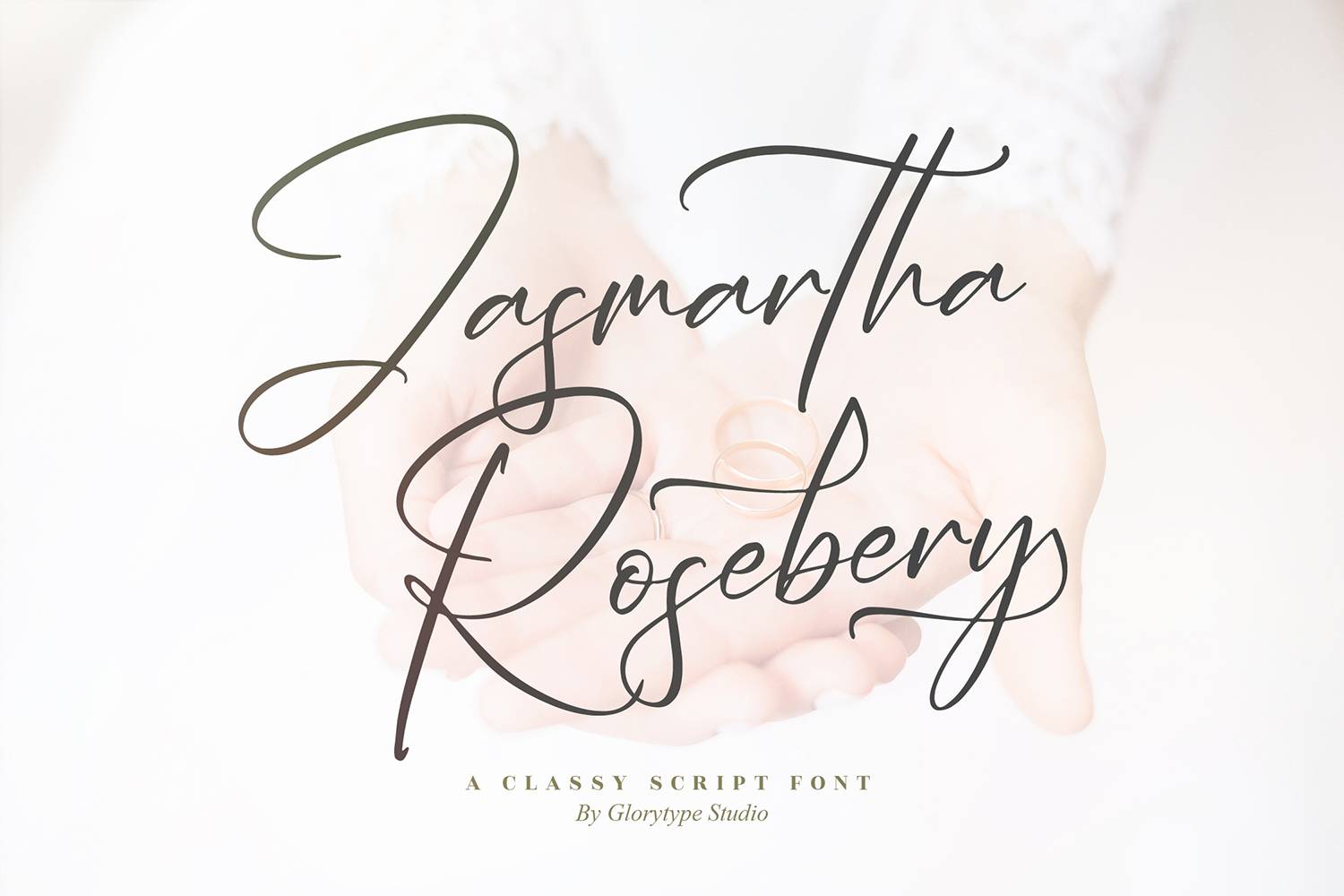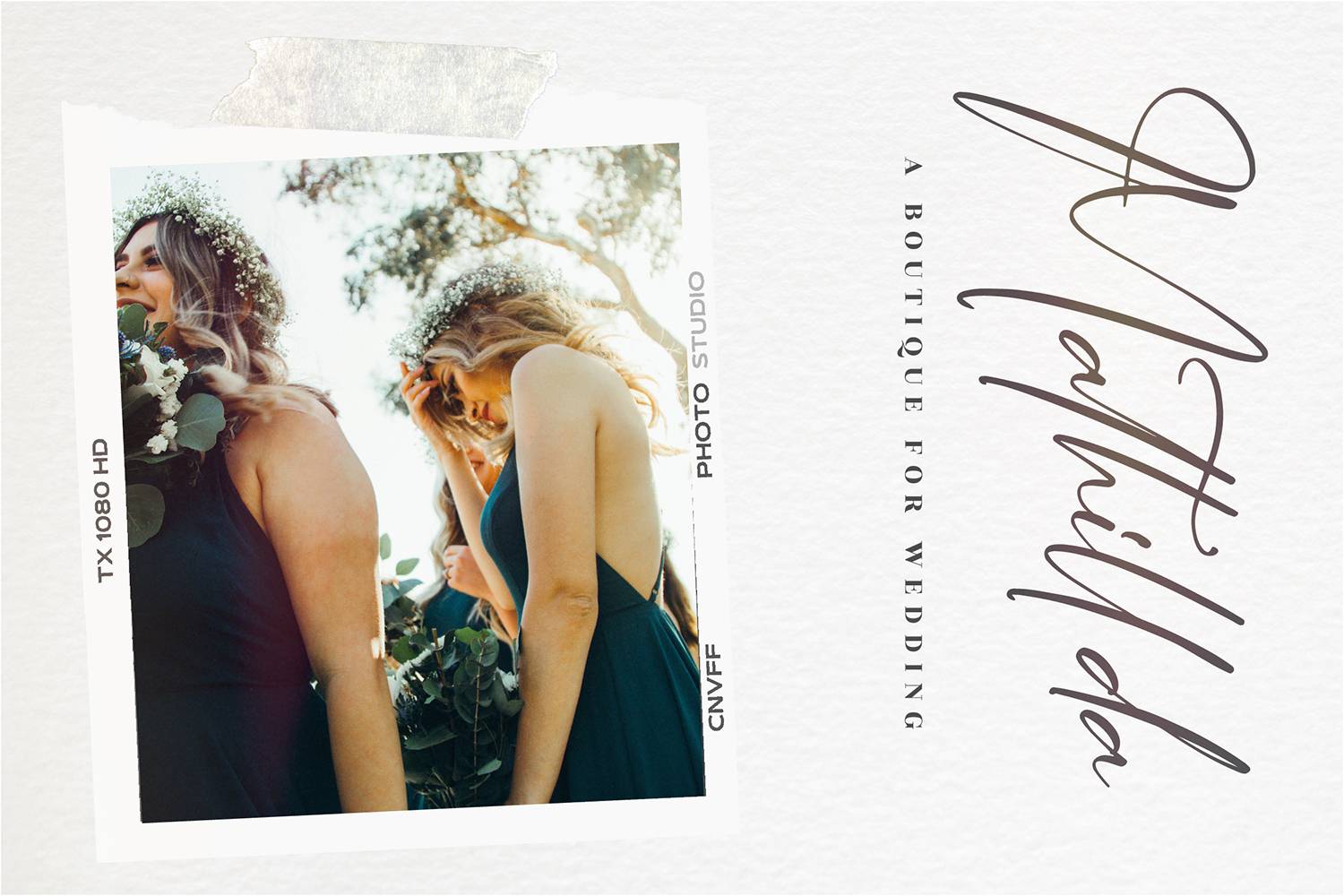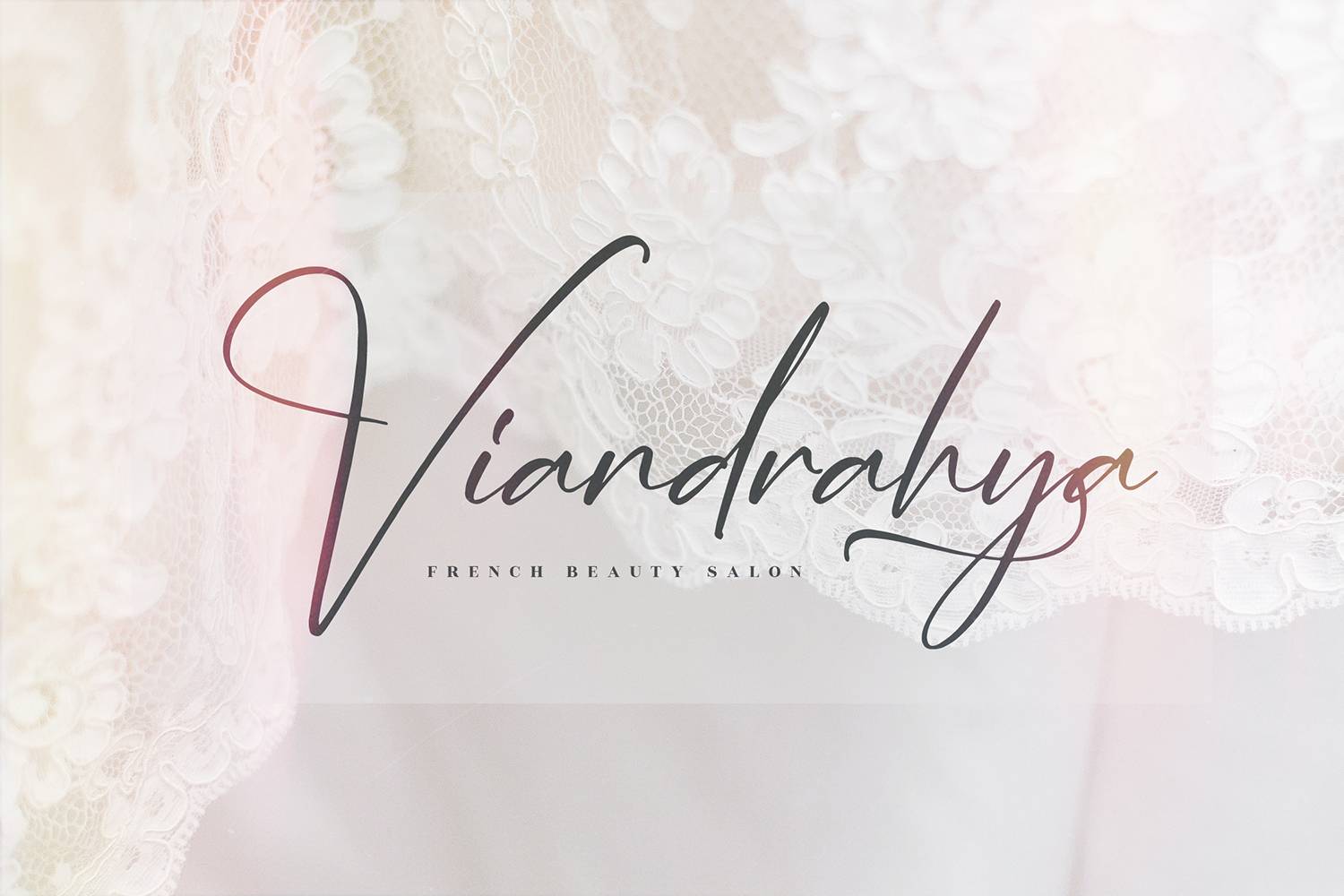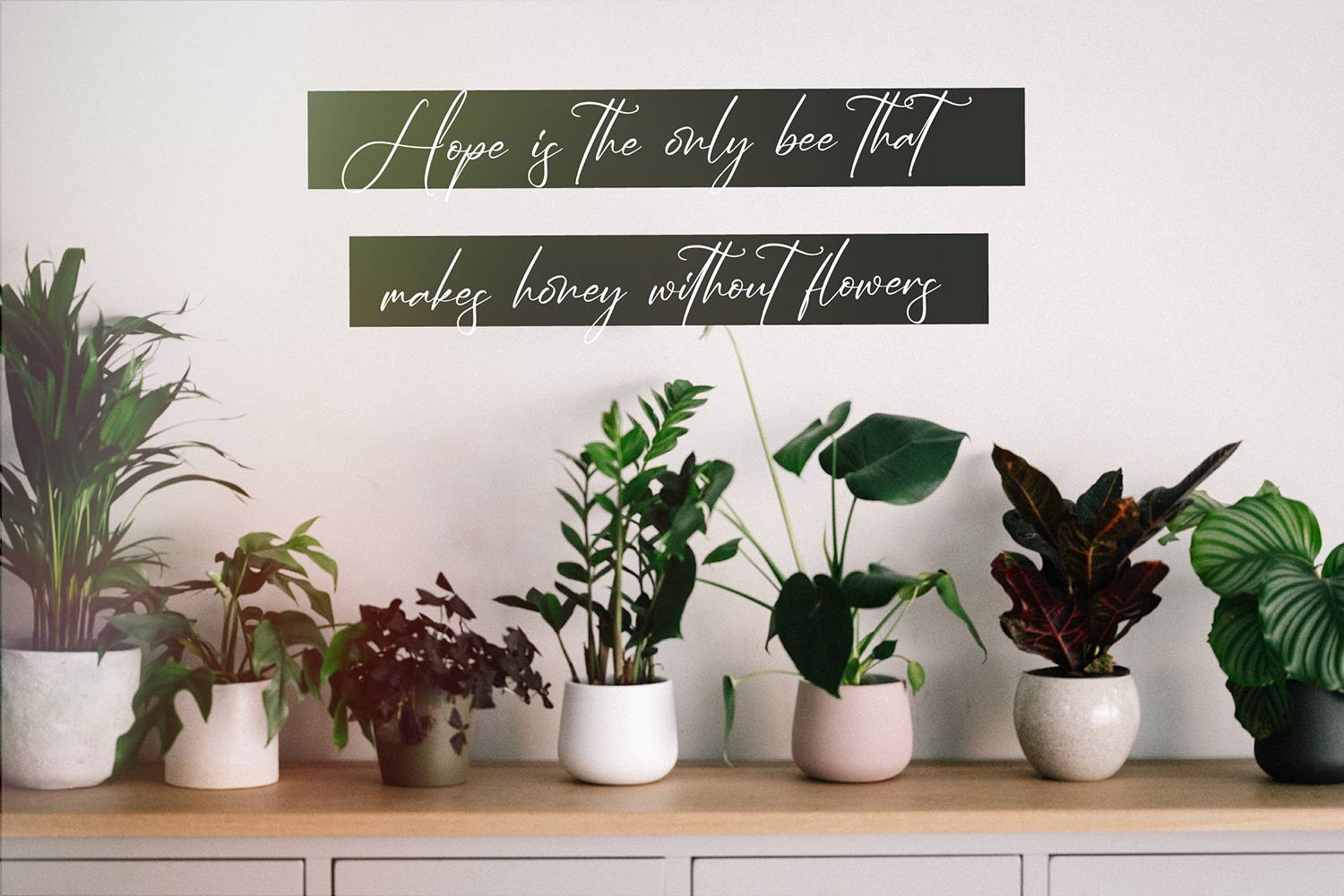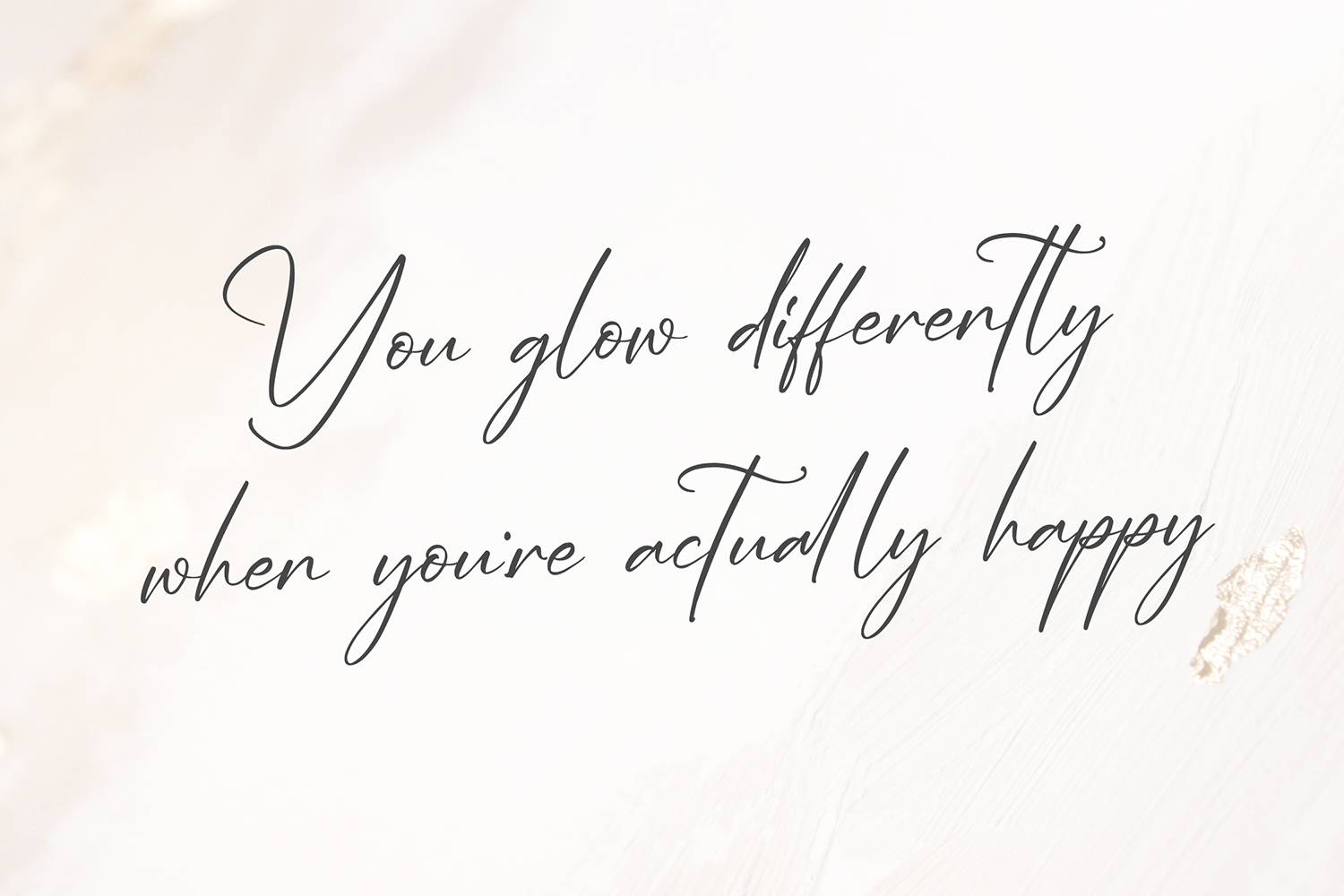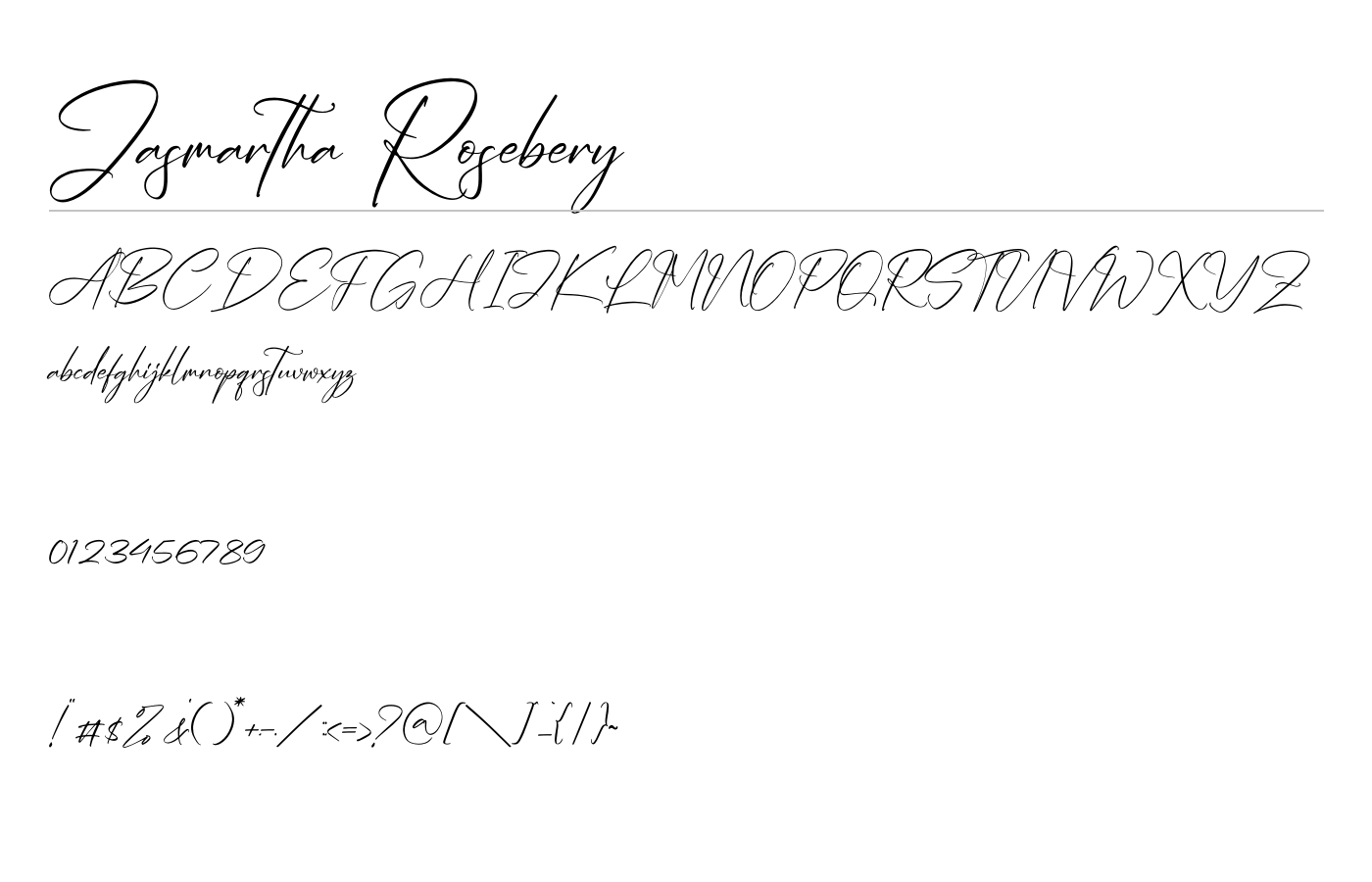
Jasmartha Rosebery is an elegant, thin-script font with a delicate, handwritten style that exudes sophistication and grace. Its flowing letterforms and refined strokes make it perfect for luxury branding, wedding invitations, and high-end editorial use where a personal and stylish touch is desired. This font shines in headlines and logos, adding a charming and modern flair to any design.
Jasmartha Rosebery Font